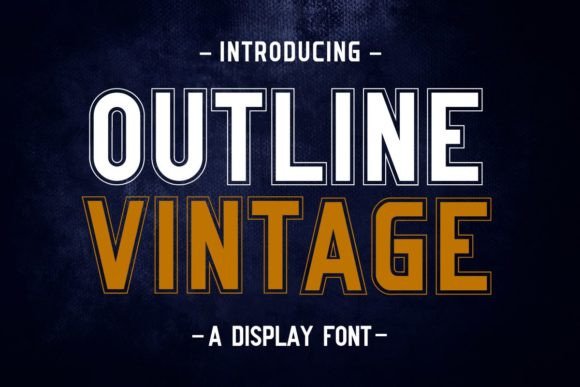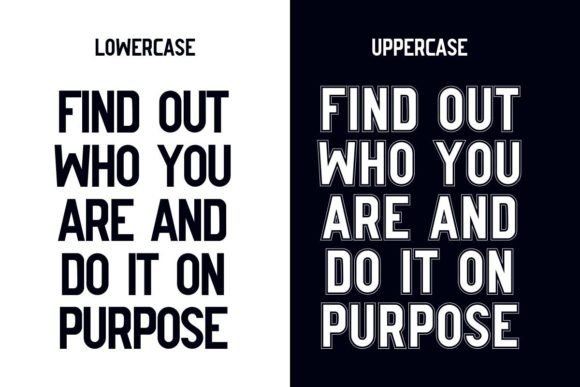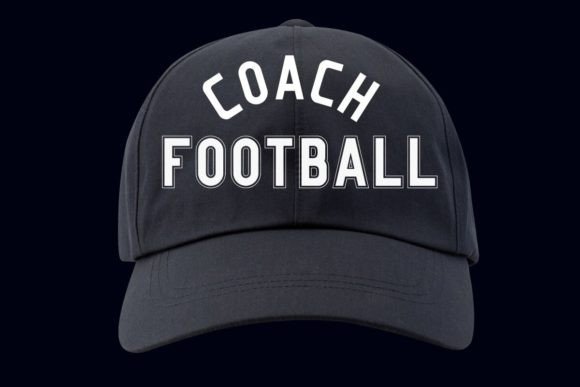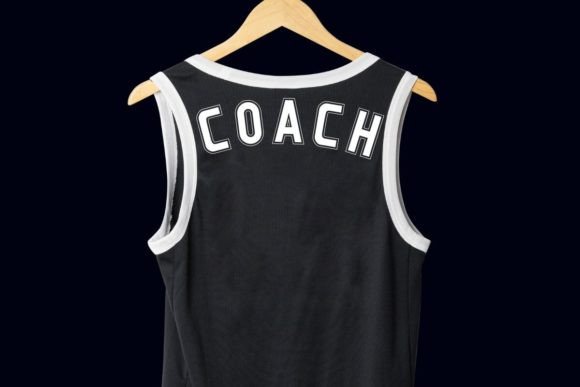
Outline Vintage Font
About the Outline Vintage Font
Introducing the Outline Vintage Font, a beautifully crafted typeface designed to elevate your creative projects. Outline Vintage is a bold display font with a sporty style. The perfect font for craft needs like t-shirts, hoodies, DIY, stickers, tote bags, decals, clothing, labels, titles, and other creative craft needs.
Its bold, vintage-inspired forms make it ideal for headlines, logos, and short impactful text on posters or packaging. The sporty style lends itself well to brands focused on active lifestyles, retro aesthetics, or handcrafted goods. However, its weight and stylistic details make it less suitable for body text or user interface elements where readability is paramount.
Pairing Outline Vintage with a clean sans-serif like Helvetica Neue for body copy creates a strong contrast and enhances readability. For a more vintage feel, consider a complementary serif like Garamond or a script font like Great Vibes for secondary text elements. This balances the boldness of Outline Vintage while maintaining visual coherence.
The overall personality is energetic and assertive, but with a touch of nostalgic charm. It’s a great choice for projects aiming for a retro-modern feel, conveying a sense of vintage-inspired quality and strength.